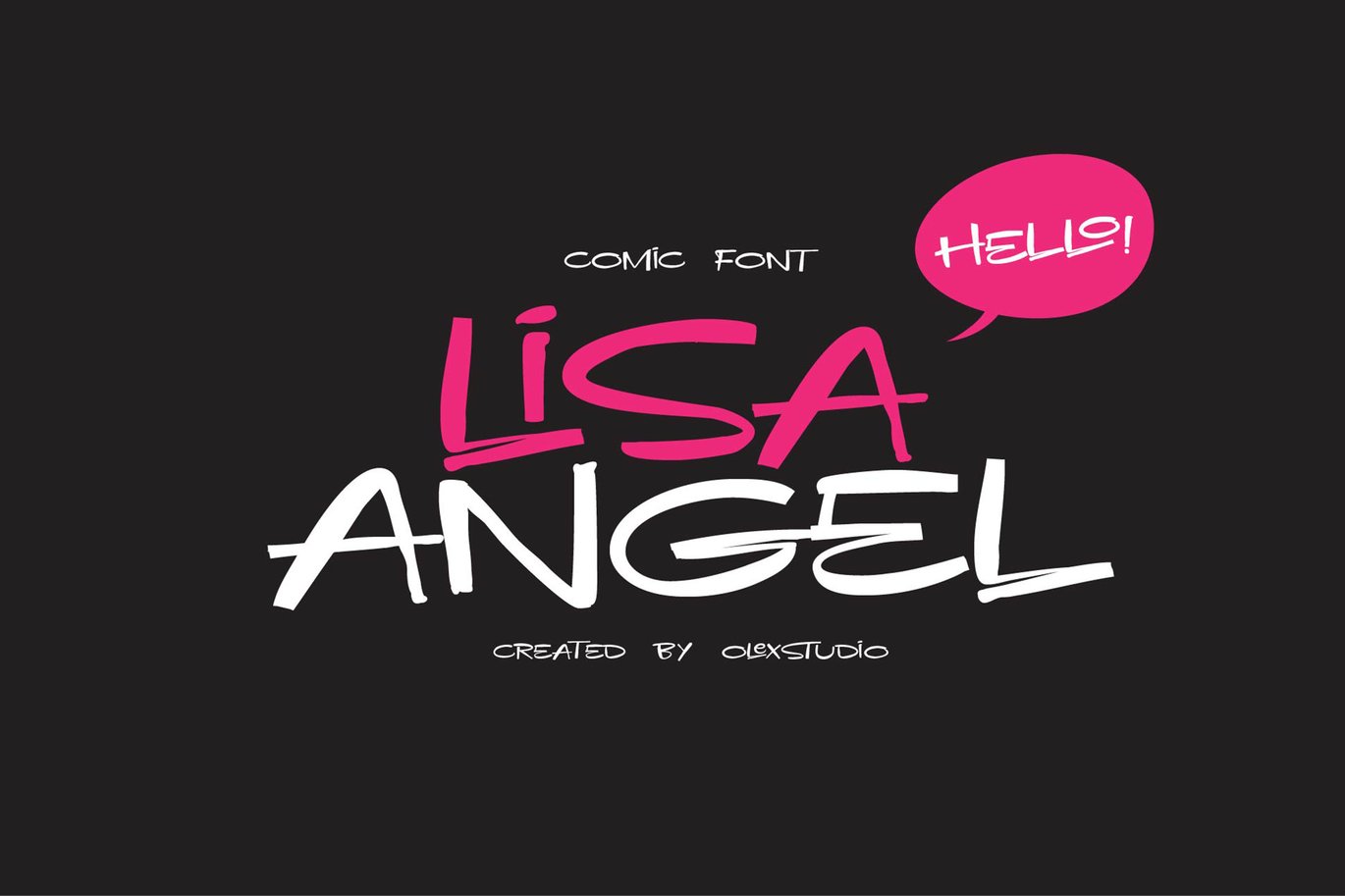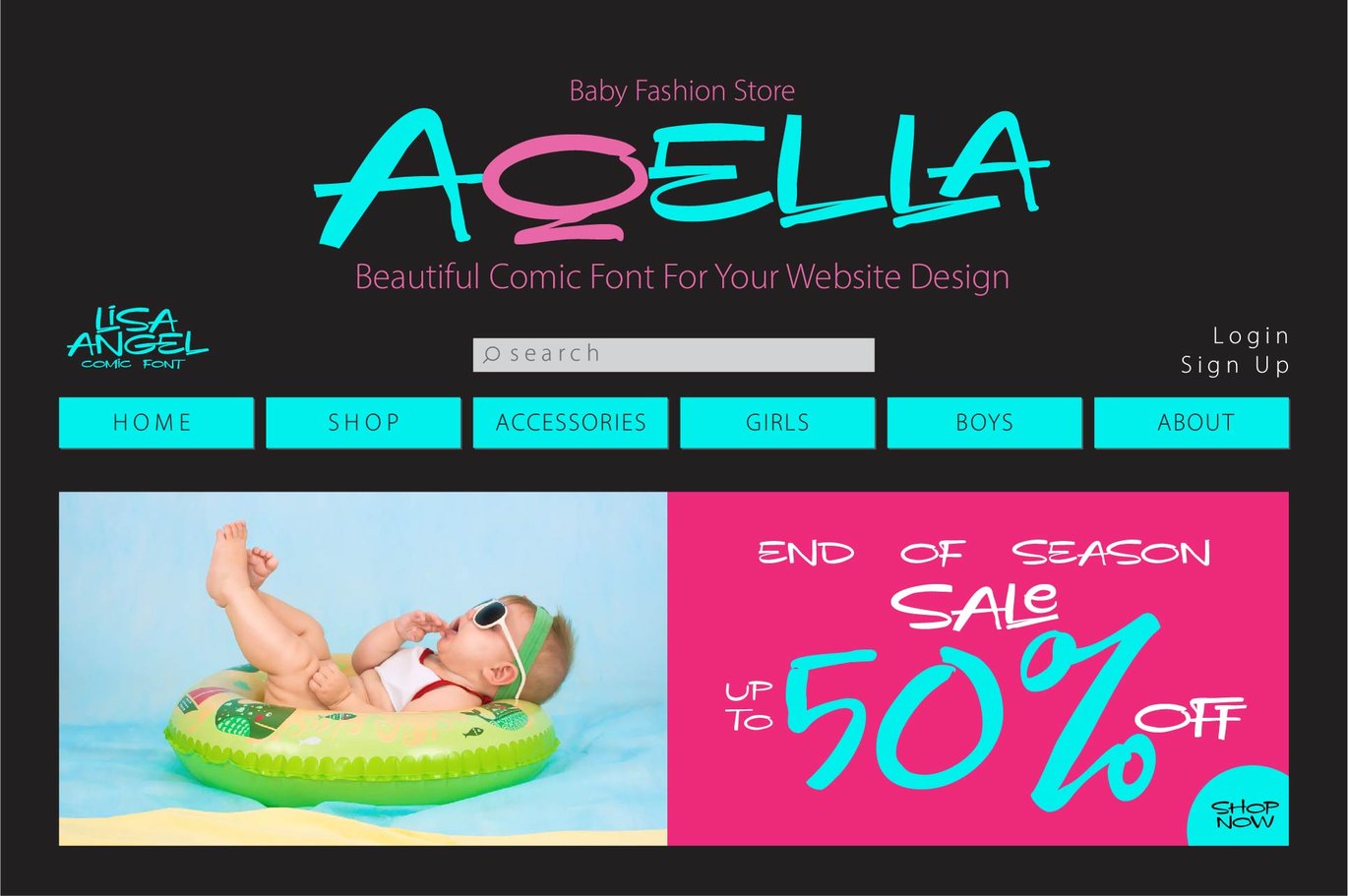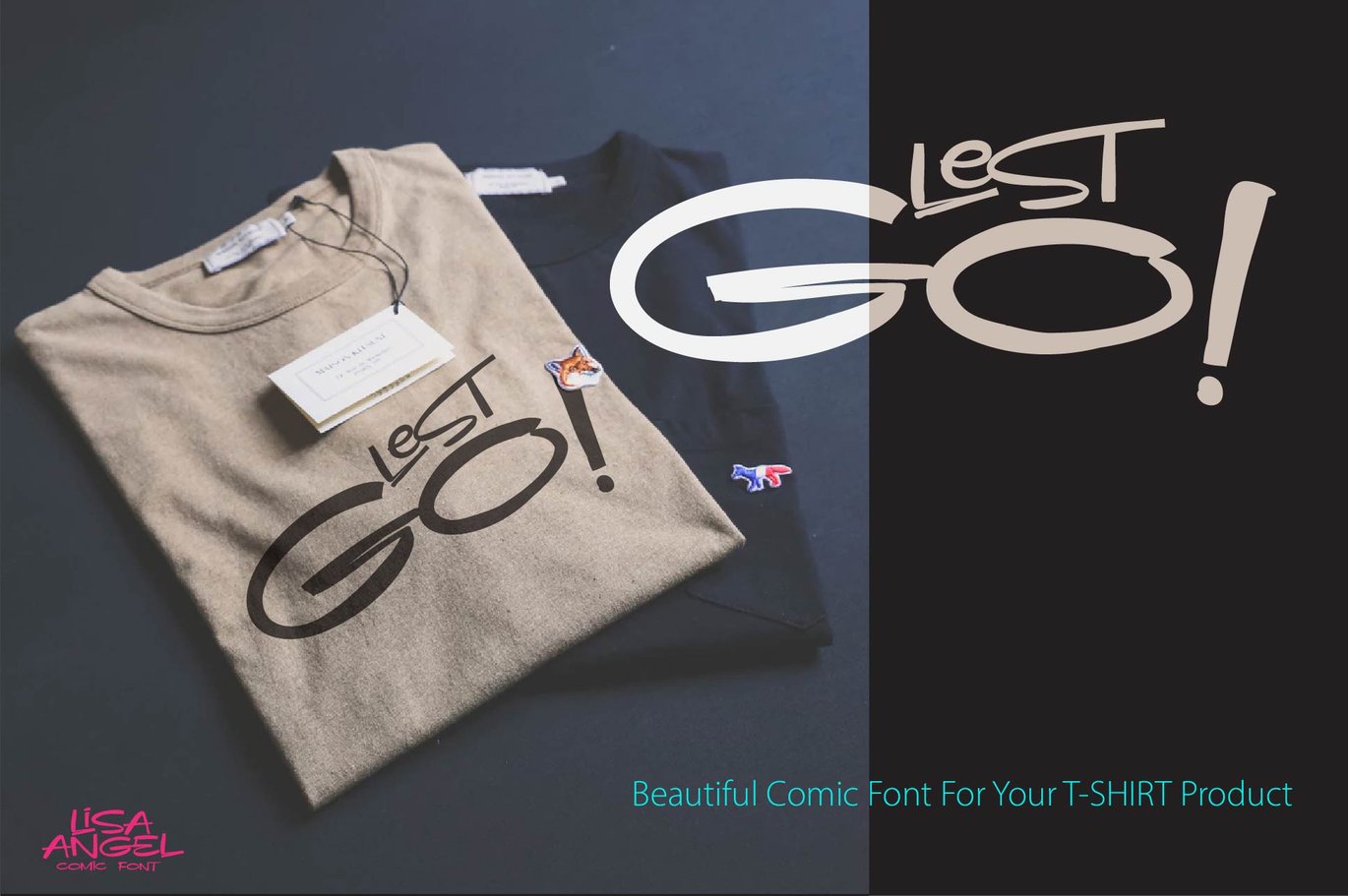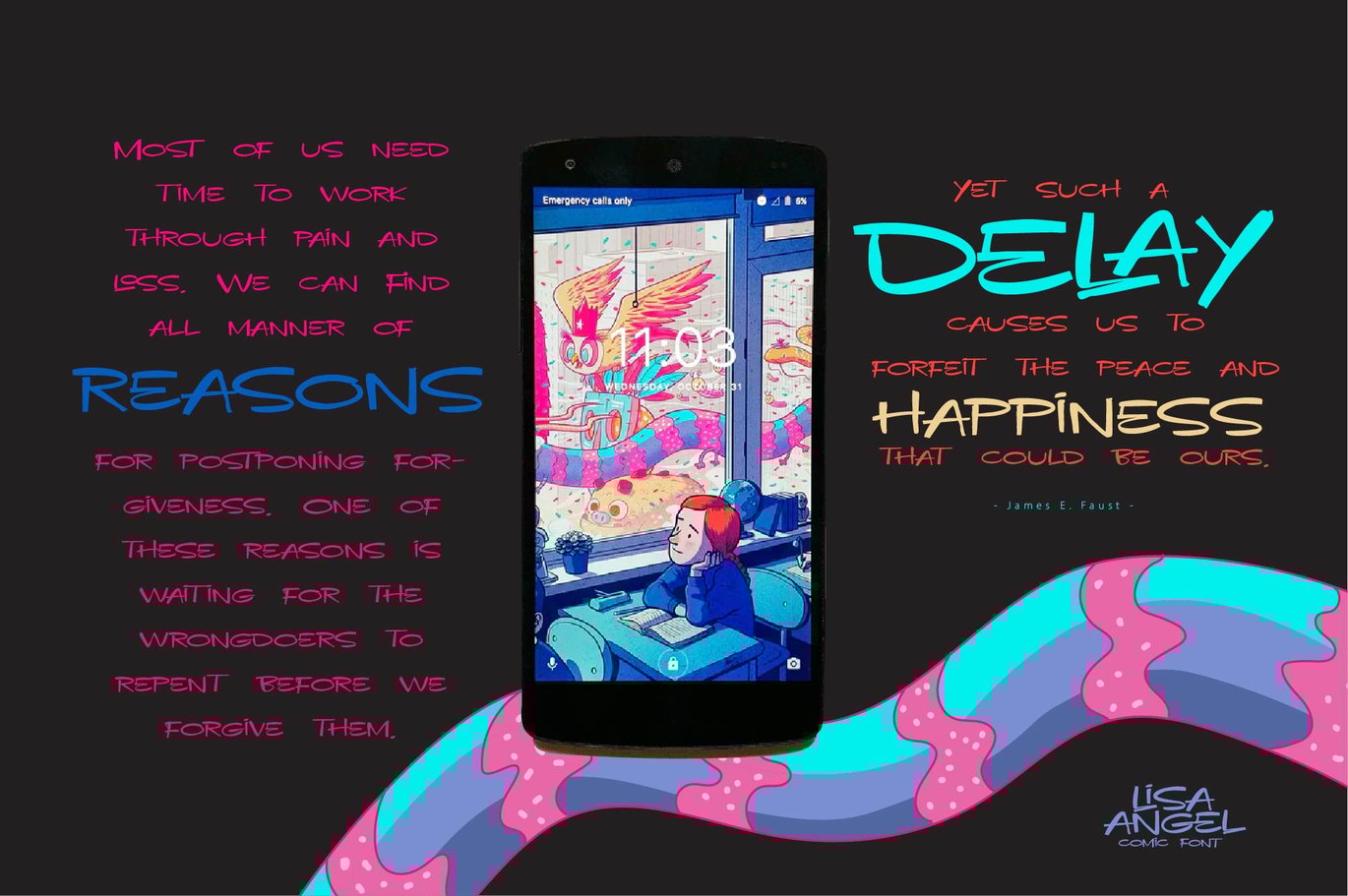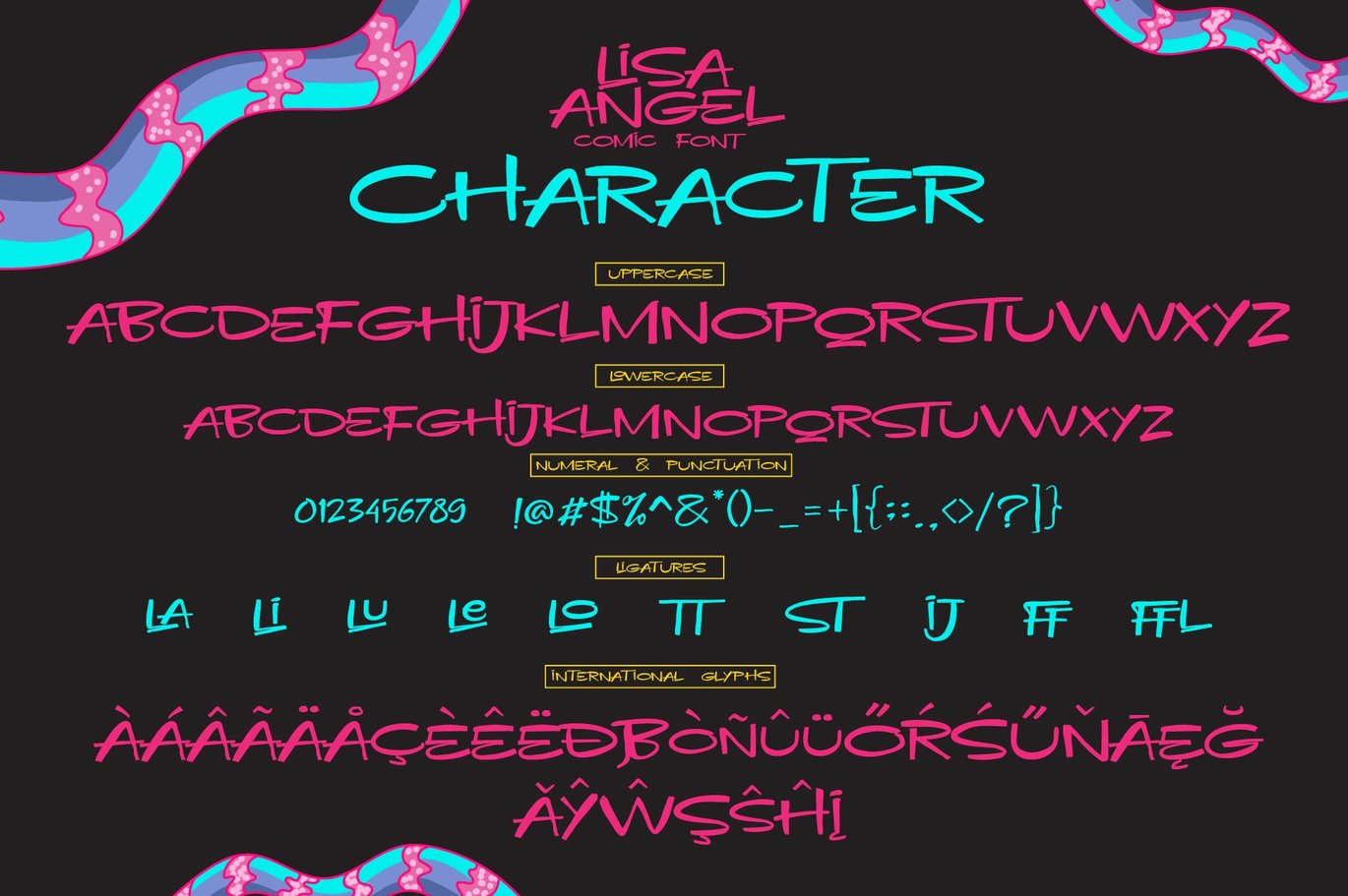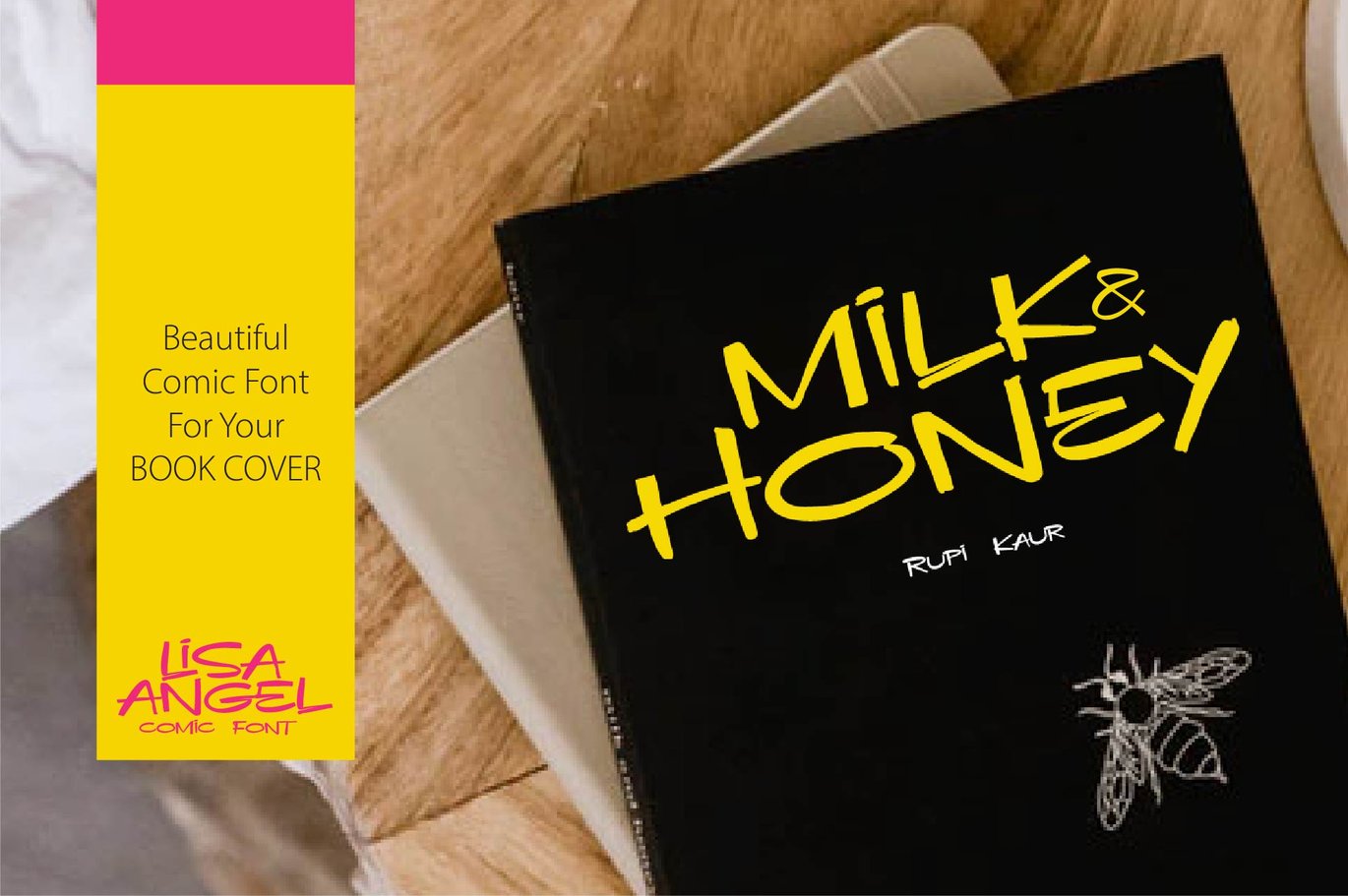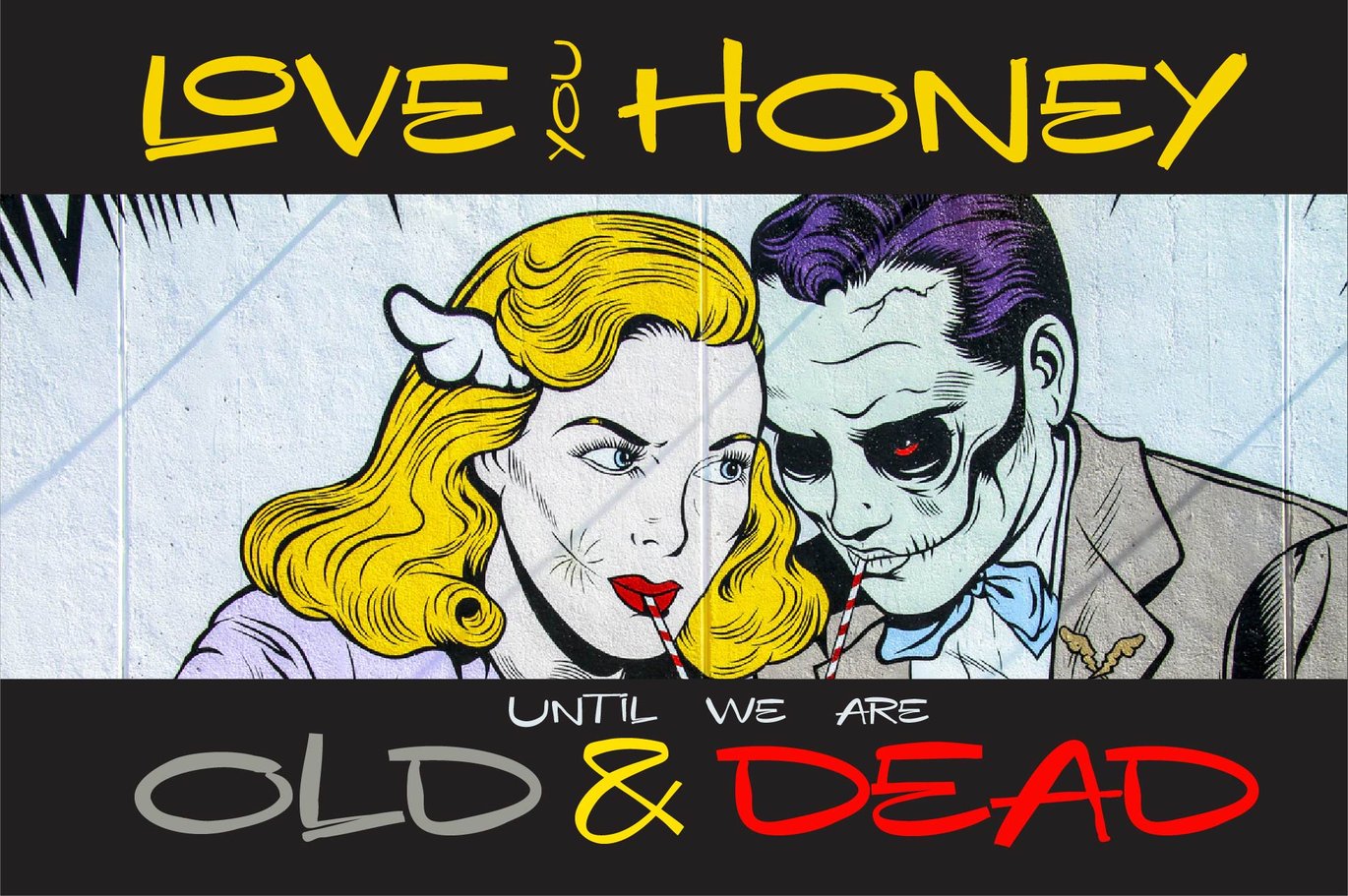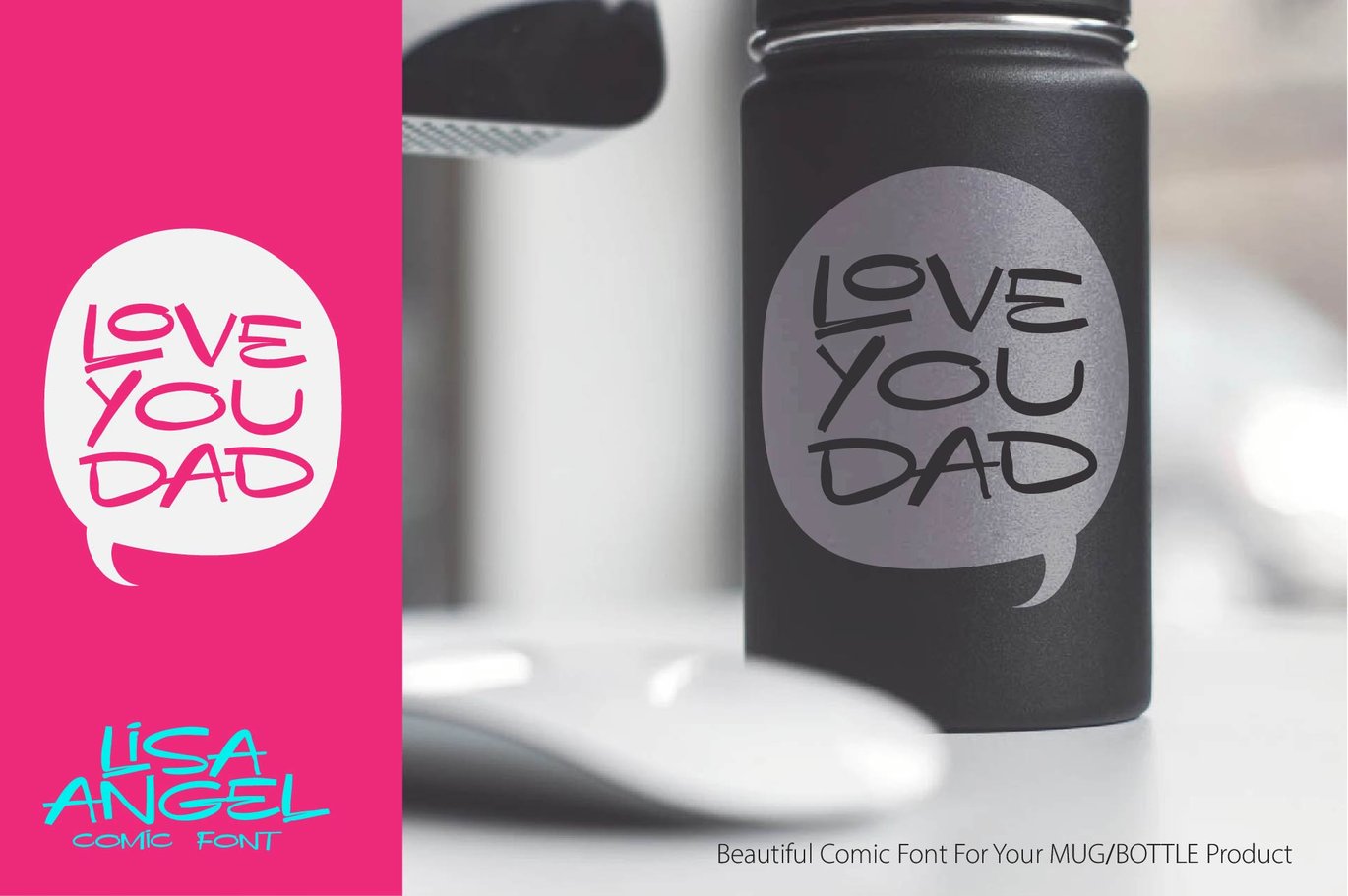
LISA ANGEL – Comic font
**LISA ANGEL – comic font is a beautiful Display comic font Typeface, This Font will look gorgeous on all your designs, book, branding materials, logo’s, t-shirt, poster, baby fashion product, comic, quotes and all project design other.
LISA ANGEL – comic font contains standard characters, lowercase, Uppercase, numbers, punctuation, ligatures and international glyphs.You will receive OTF, TTF and WEBFONT files.